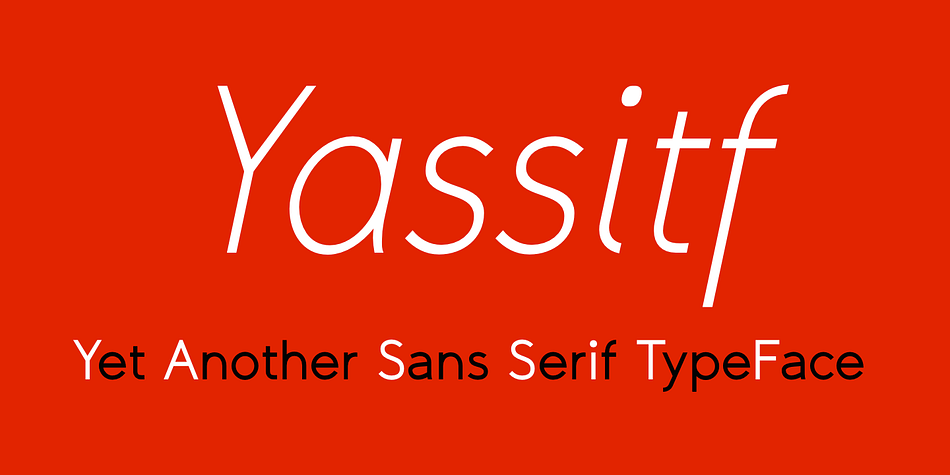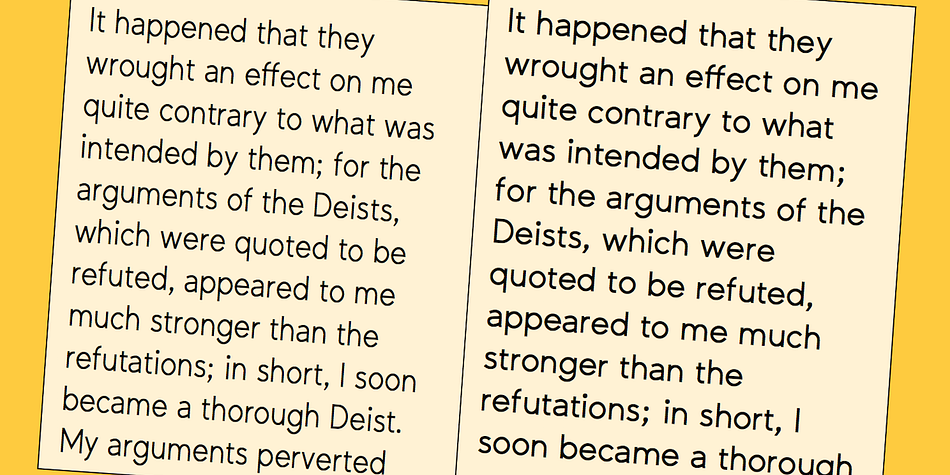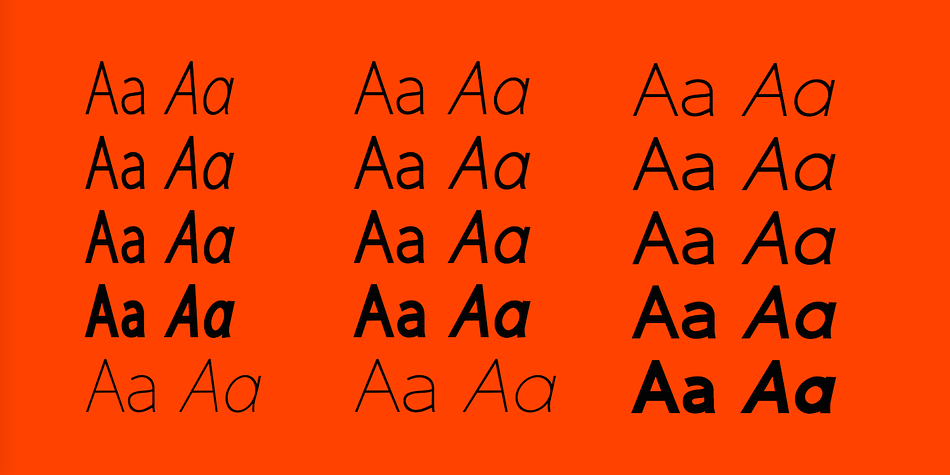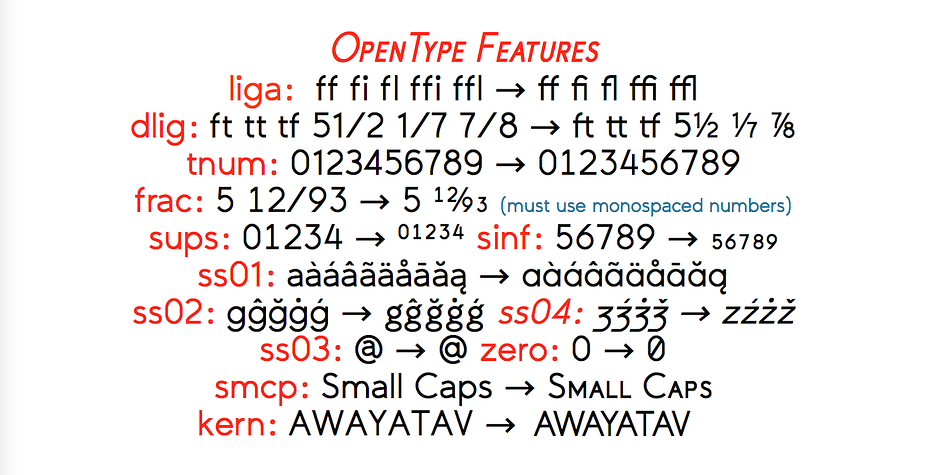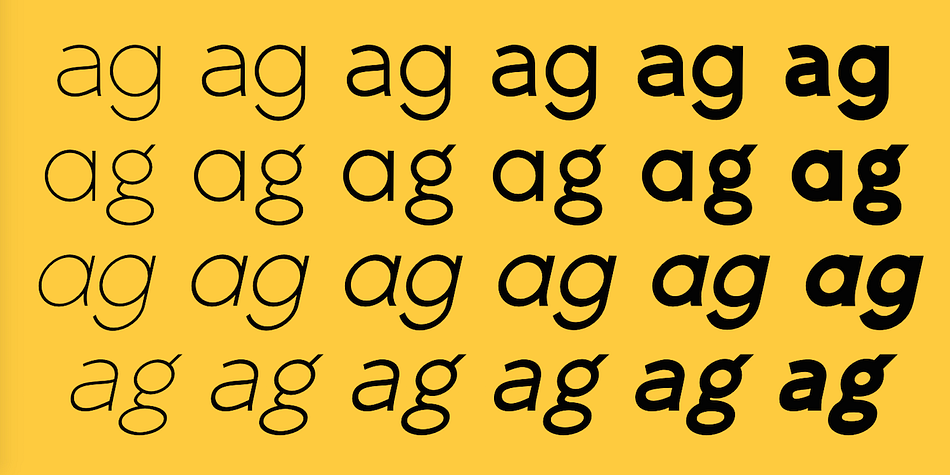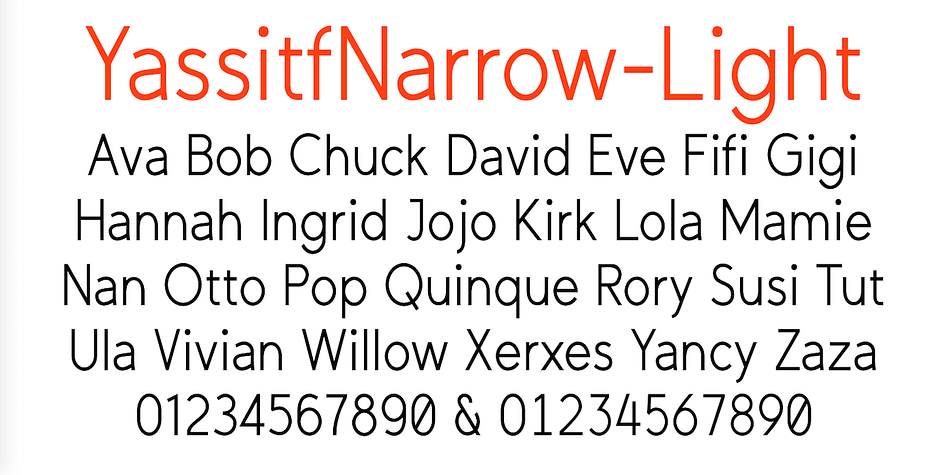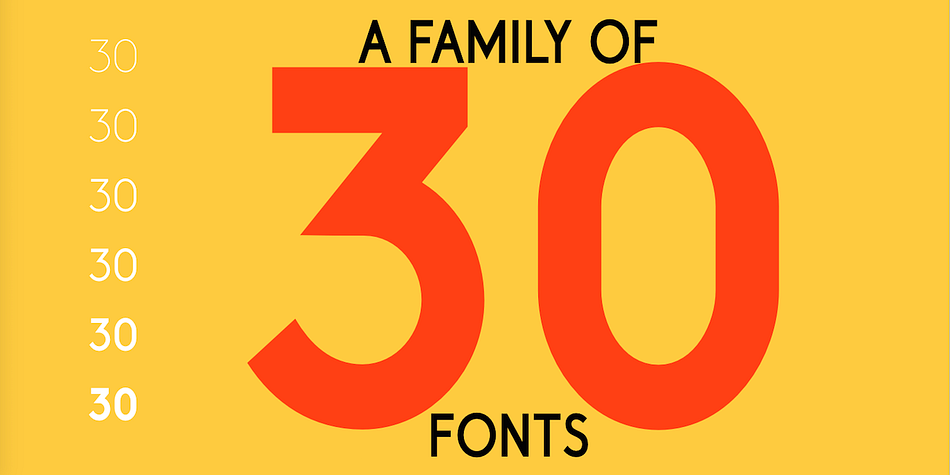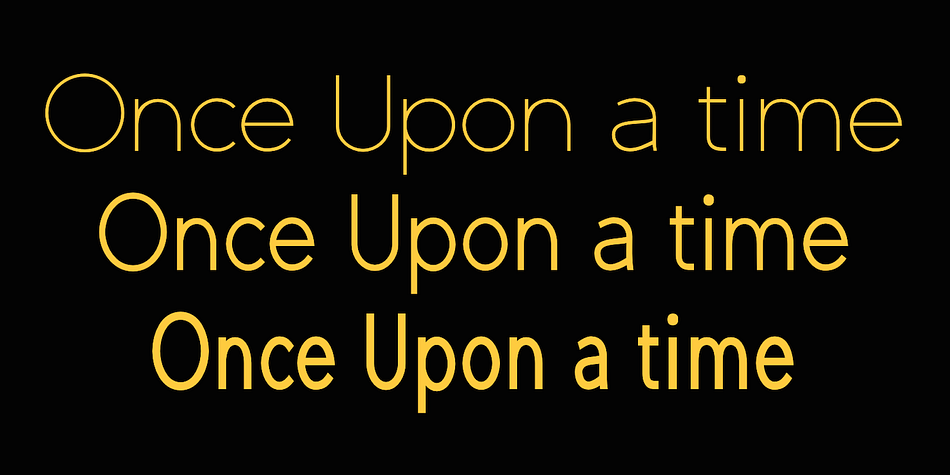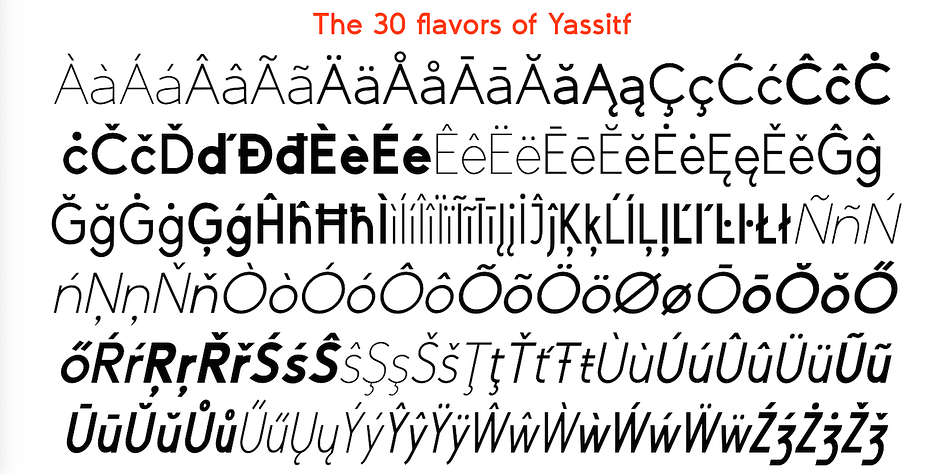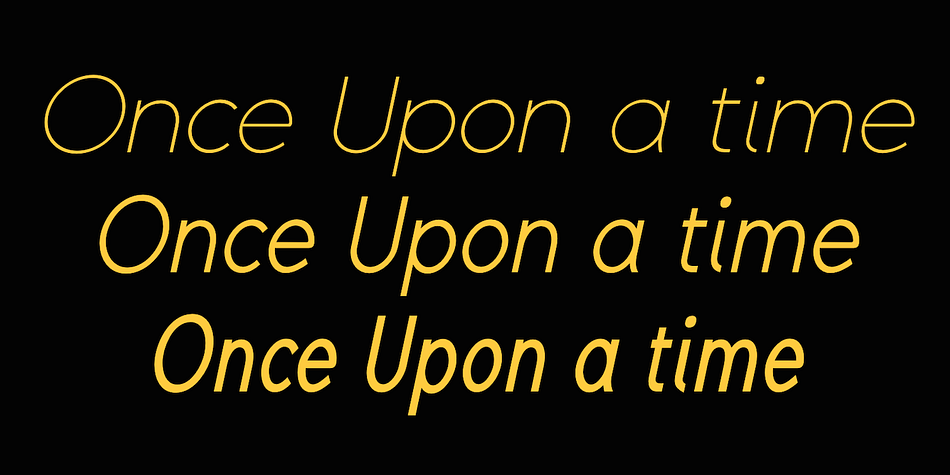
Designed by Robert Schenk, Yassitf is a sans serif font family. This typeface has thirty styles and was published by Ingrimayne Type.
Yet another san serif typeface, Yassitf is a generic sans, a font meant to blend in rather than stand out. It has little contrast and is almost monoline. It includes three widths: condensed, narrow, and regular. The widths have four to six weights: ultra thin, thin, light, plain, bold, and extra bold. Further, each width and weight combination has both upright and italics styles. The thirty fonts in the family contain several open-type features, including both proportional and tabular (monospaced) numbers.